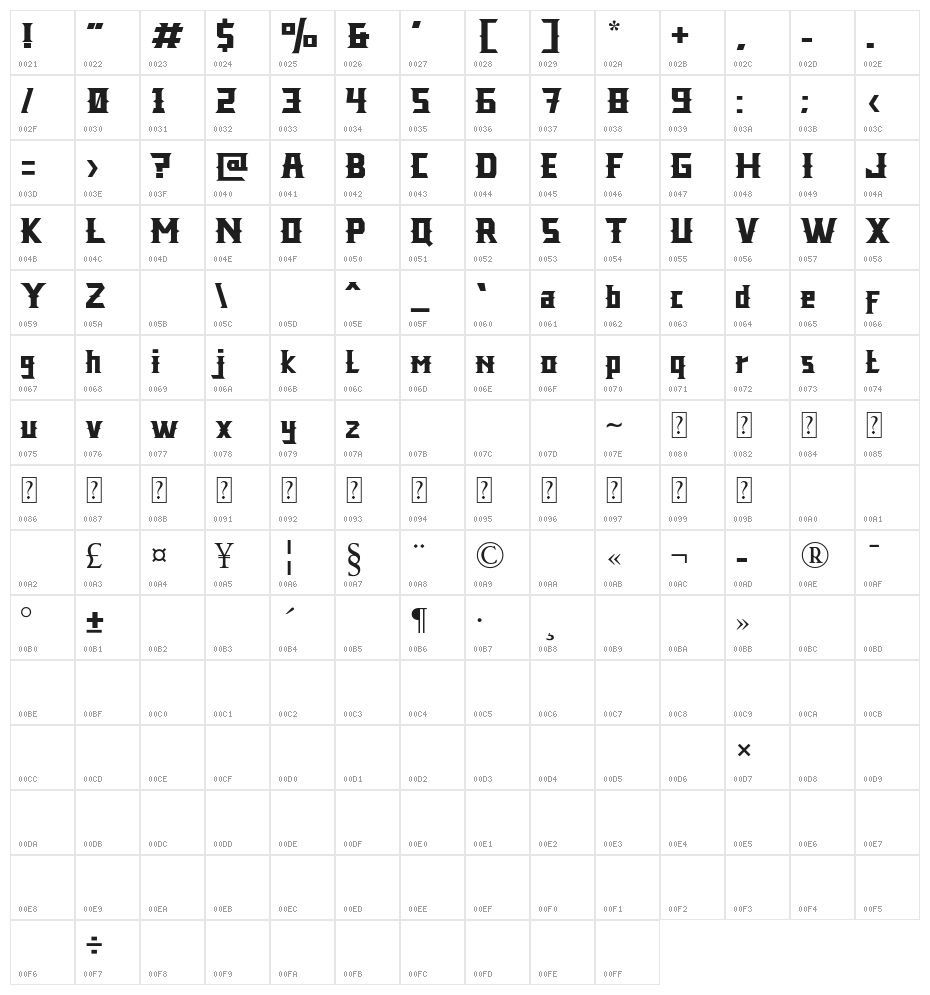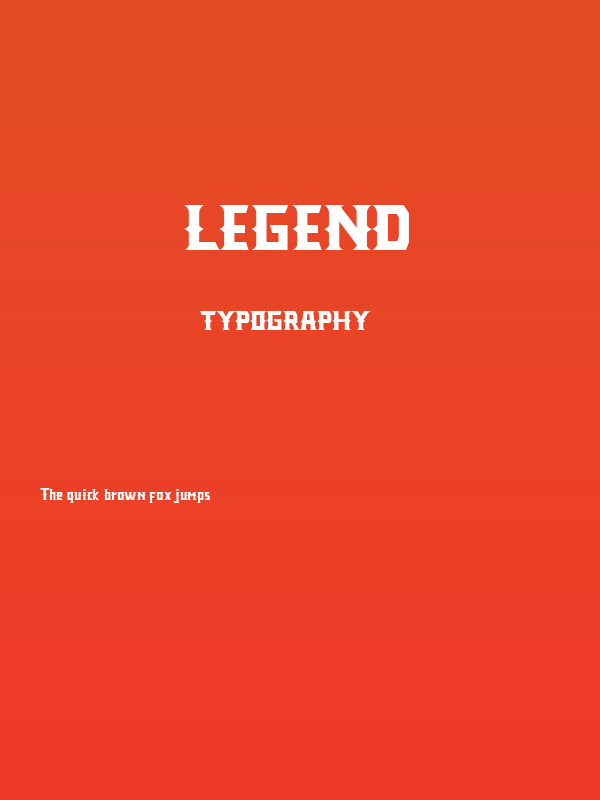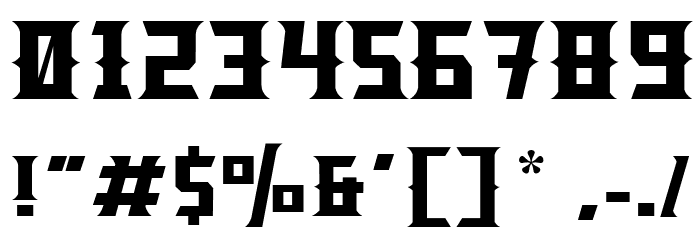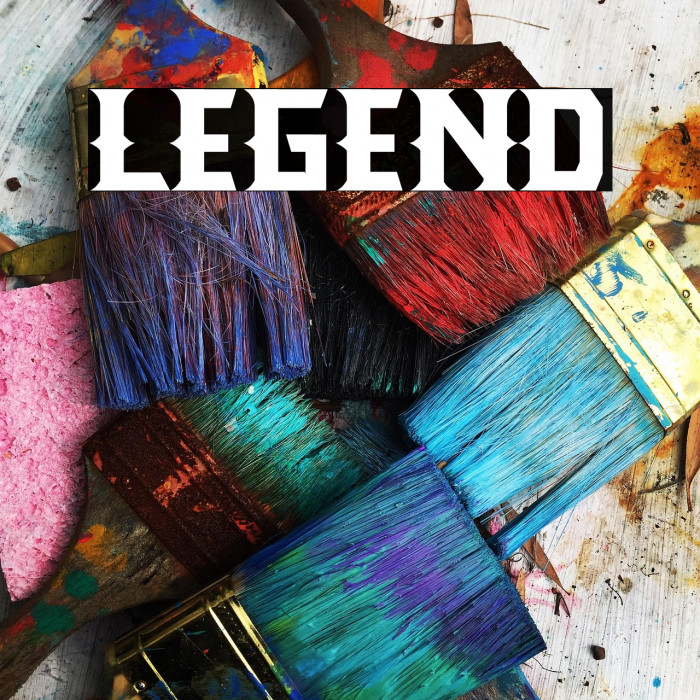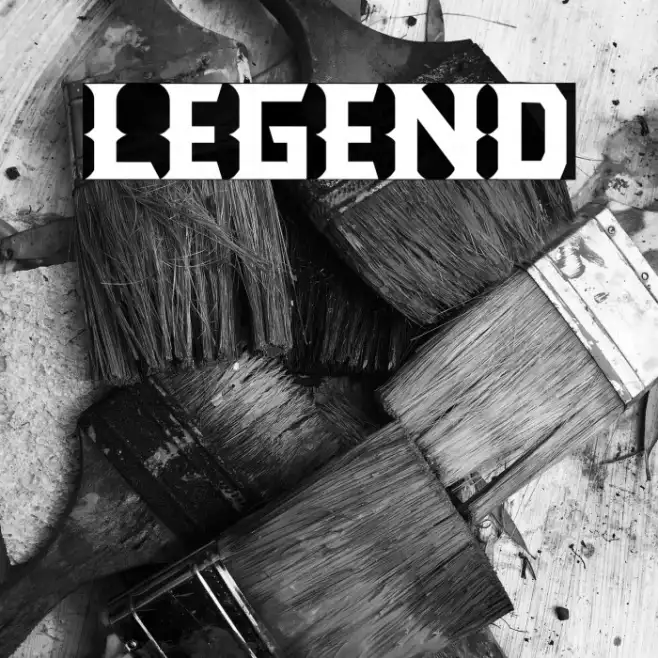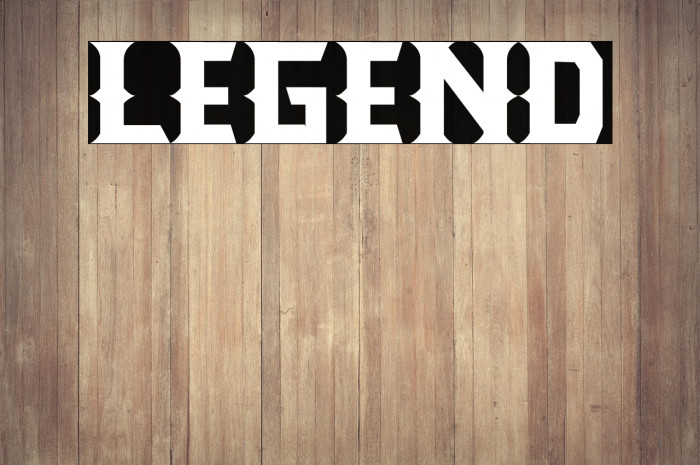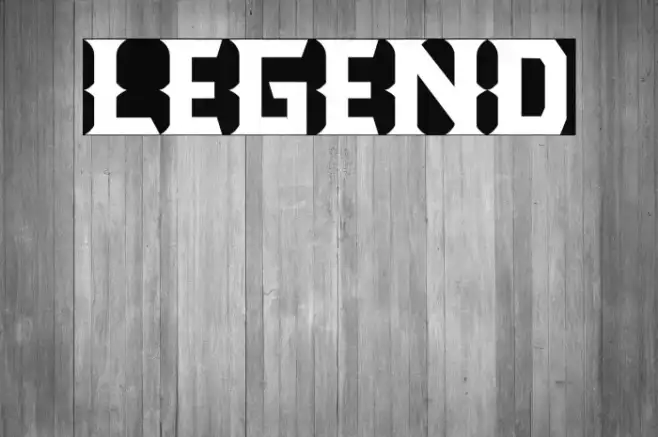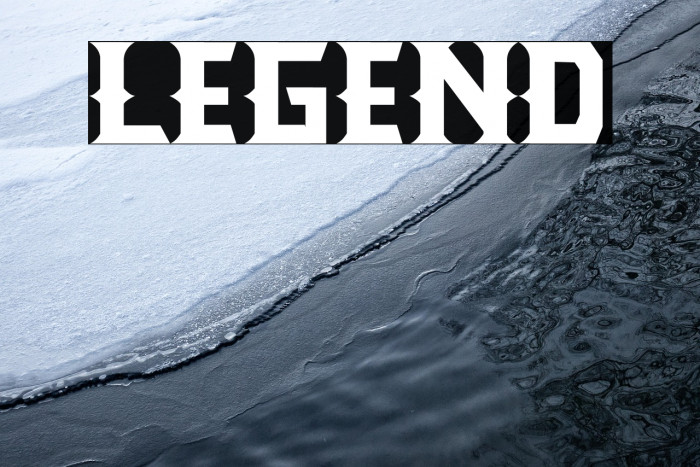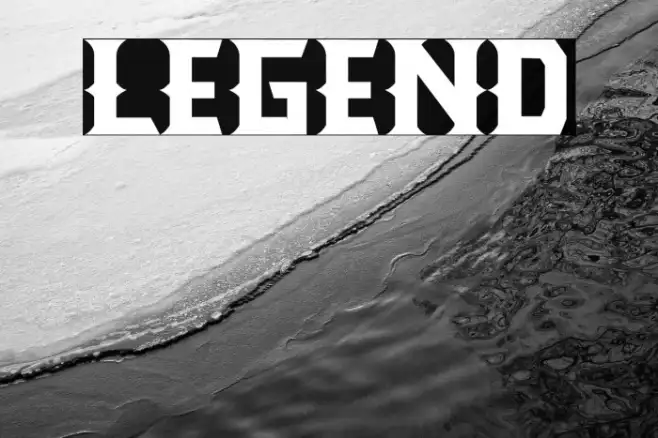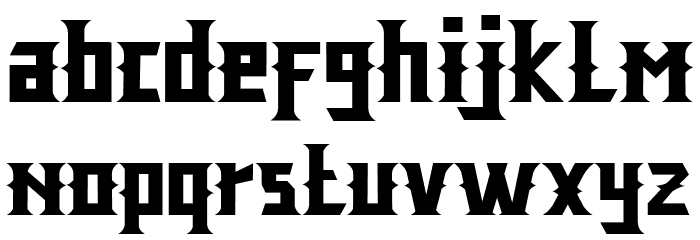
LEGEND Font
LEGEND Description
This font features a bold and striking design with sharp, angular edges and a strong geometric influence. The characters are highly stylized, with a unique blend of modern and traditional elements that give it a distinctive appearance. The uppercase and lowercase letters maintain a consistent style, with a uniform height and width that creates a cohesive look. The numbers and special characters are equally bold, ensuring readability while maintaining the font's overall aesthetic. This typeface is ideal for making a statement, with its high contrast and dramatic flair.